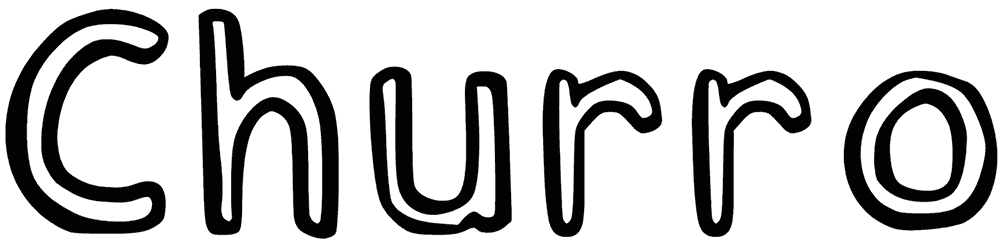
Churro Font
Do you want to have a notable and distinct manual context to make your design more appealing? Do not miss this outline font with its hand-painted letter style. Churro reflects a cute and playful vibe that can be an ideal…
Do you want to have a notable and distinct manual context to make your design more appealing? Do not miss this outline font with its hand-painted letter style. Churro reflects a cute and playful vibe that can be an ideal choice for many creative layouts. Set this handwritten font on your intended designs like posters, covers, apparel, mugs, or so forth, and have a delight.